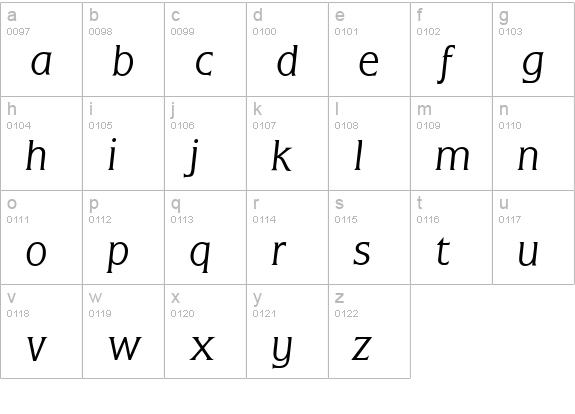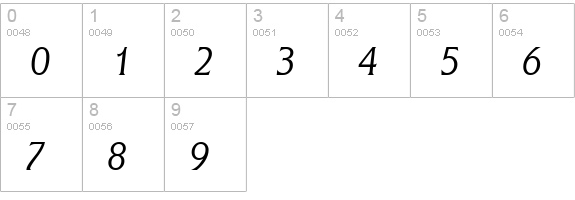
Fleming-Light-Italic is a refined, elegant, italic variant in the Fleming typeface family \xE2\x80\x94 well suited to elegant body text, refined sub-headings, and luxury branding.
Fleming Light Italic font is a delicately crafted typeface that exudes elegance and sophistication. Its slim and stylish design makes it perfect for adding a touch of class to any project. The italicized characters add a sense of movement and grace to the text, making it a standout choice for editorial pieces, invitations, and branding materials. What sets Fleming Light Italic font apart is that it is available for free download at FontsMarket.com. This means that you can easily access this beautiful typeface without any cost, making it an invaluable resource for designers and creatives looking to elevate their work with a touch of refined charm. Embrace the timeless appeal of Fleming Light Italic font and bring a touch of sophistication to your projects today.